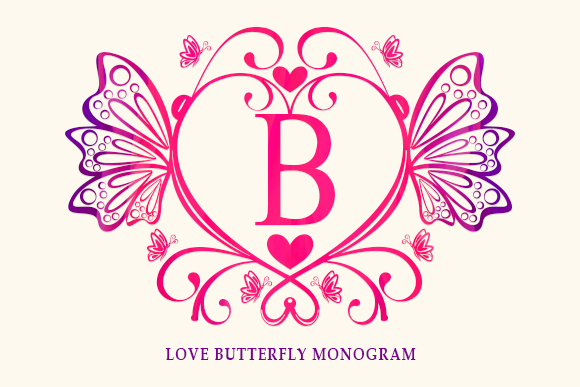
Immerse yourself in the world of whimsical artistry with Love Butterfly Monogram Font, a decorative masterpiece that captures the essence of romantic enchantment. This font will ignite your creativity with its intricate ornaments and charming details, beckoning you to weave tales of love and joy.
With Love Butterfly Monogram Font, your designs will blossom with elegance and sophistication. Picture wedding invitations adorned with delicate swirls and flourishes, adding a touch of timeless beauty to your special day. Let your imagination soar as you craft captivating stationary art, transforming ordinary words into exquisite works of art.
Step into the realm of social media and make your posts stand out with Love Butterfly Monogram Font. Its eye-catching presence will demand attention, drawing followers into your world of visual delight. Create captivating graphics, headers, and captions that resonate with your audience, leaving a lasting impression that sets you apart from the ordinary.
And when it's time to spread warmth and cheer, Love Butterfly Monogram Font will be your faithful companion. Design heartwarming greeting cards that touch the hearts of your loved ones. Let your words of affection dance across the page, adorned with intricate embellishments that convey the depth of your sentiments.
Love Butterfly Monogram Font is more than just a collection of letters and symbols; it's an invitation to embark on a creative journey where imagination reigns supreme. Embrace its enchanting allure and watch as your designs transform into masterpieces that captivate and inspire.